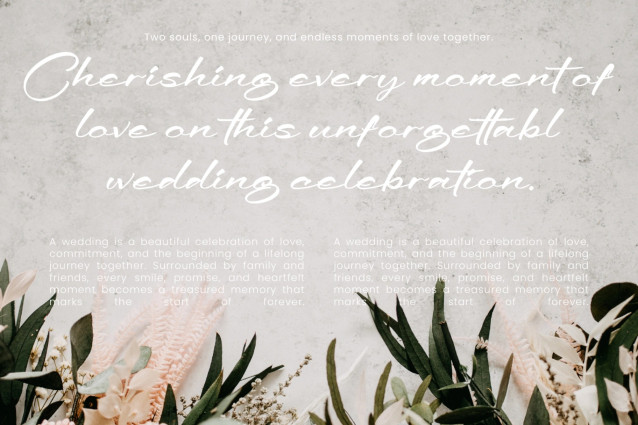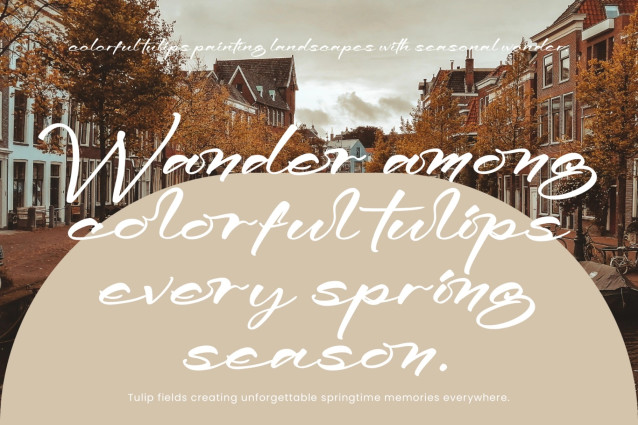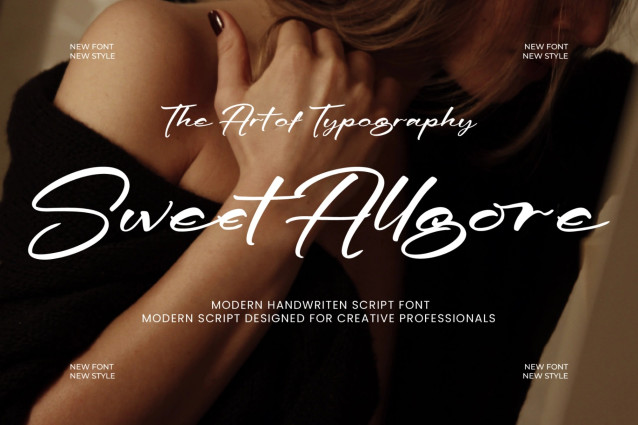
Sweet Allgore Font is a modern handwritten script font that combines elegance, fluidity, and contemporary style in a beautifully crafted typeface. Designed with smooth strokes and natural handwriting movement, this font creates a sophisticated yet approachable appearance that feels personal and authentic. Its graceful letterforms and stylish connections make Sweet Allgore an excellent choice for designers seeking a modern script that stands out while maintaining readability. The font delivers a perfect balance between luxury and creativity, making it suitable for a wide range of branding and editorial applications.
Whether you’re creating logos, wedding invitations, social media content, product packaging, fashion branding, or promotional materials, Sweet Allgore brings a refined handwritten touch that enhances the visual appeal of any project.